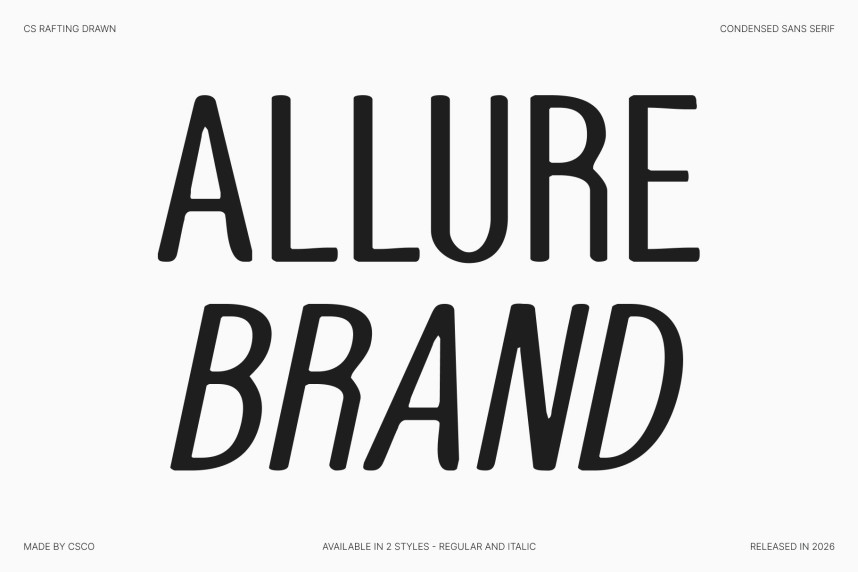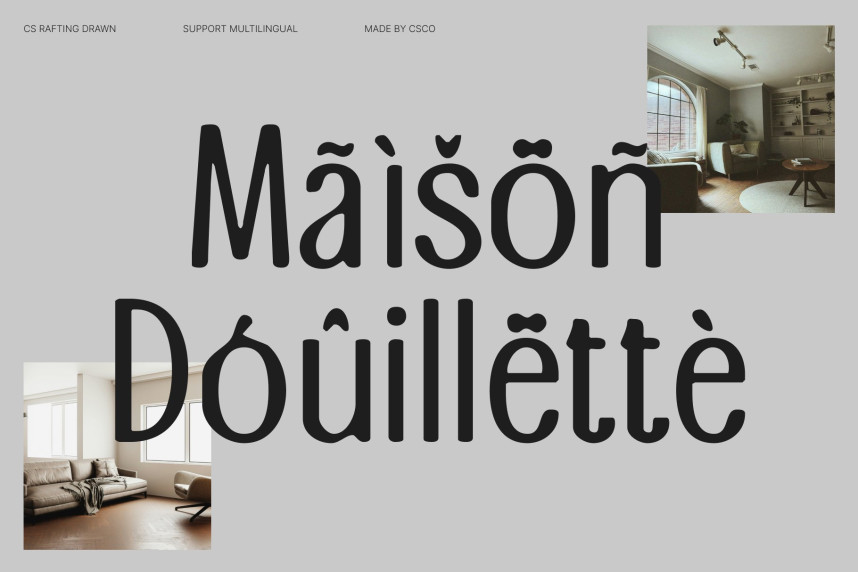
CS Rafting Drawn Font
CS Rafting Drawn Font – Modern Sans Serif with Elongated Strength Modern Sans Serif with Confident Presence and Hand-Drawn Edge. This is a modern sans serif font designed to communicate confidence through clean structure and strong proportions, enhanced with a subtle hand-drawn texture. Its clear construction and balanced weight create a solid, professional presence, while the drawn detail introduces warmth and character. The result is a typeface that feels assertive yet approachable powerful without being harsh.